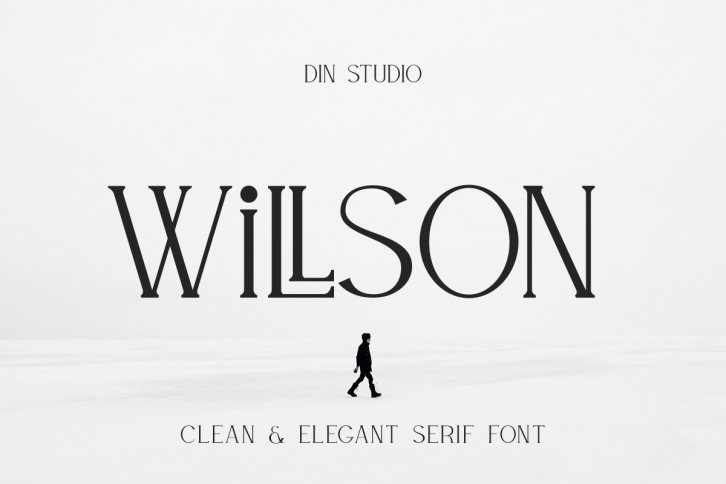
WILLSON is a great font that was designed by Din Studio. Imagine the amount of combinations you can create using this font! The archive is 9.61 MB and it was released on October 10, 2019. WILLSON looks beautiful on wedding invitations, greeting cards, logos, posters, labels, t-shirt designs, logos, business cards and is perfect for use in ink or watercolor works, fashion, magazines, packaging and food menus, children's books and more!